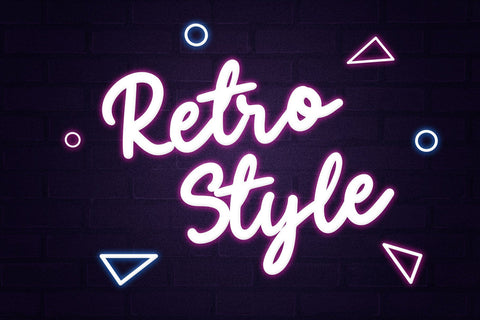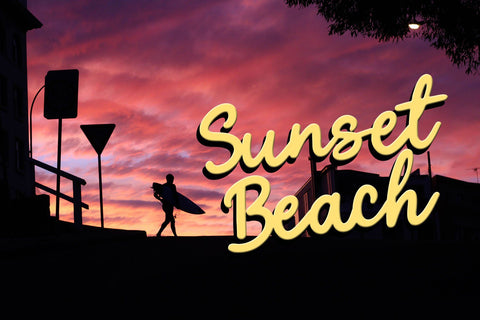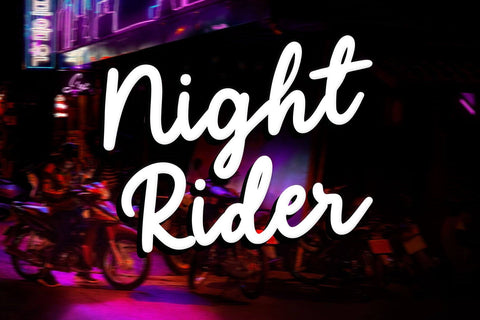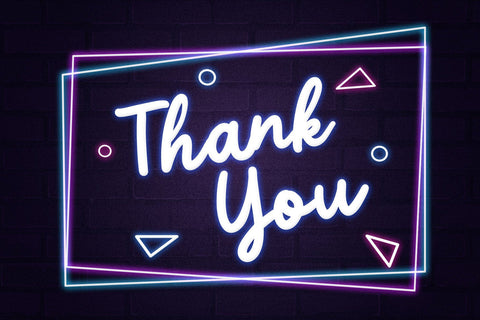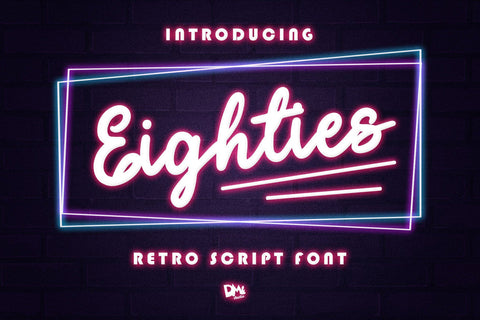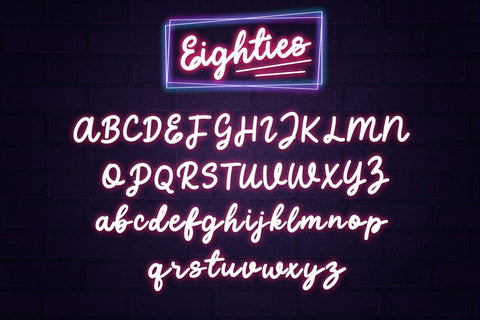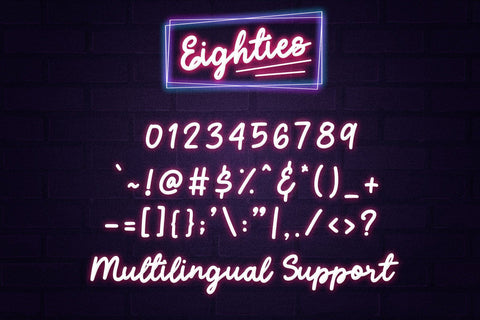
Eighties - Retro Script Font
Introducing,
Eighties Retro Script Font
Inspired by 80's display font style, the Eighties Font comes in bold mono line, casual handwritten with timeless design.
Great choice for display needs, branding, logo, advertisements, social media post, and much more..
This font also has minimal nodes so we can say it versatile for any purpose!